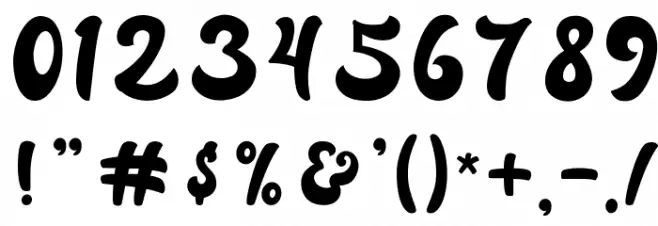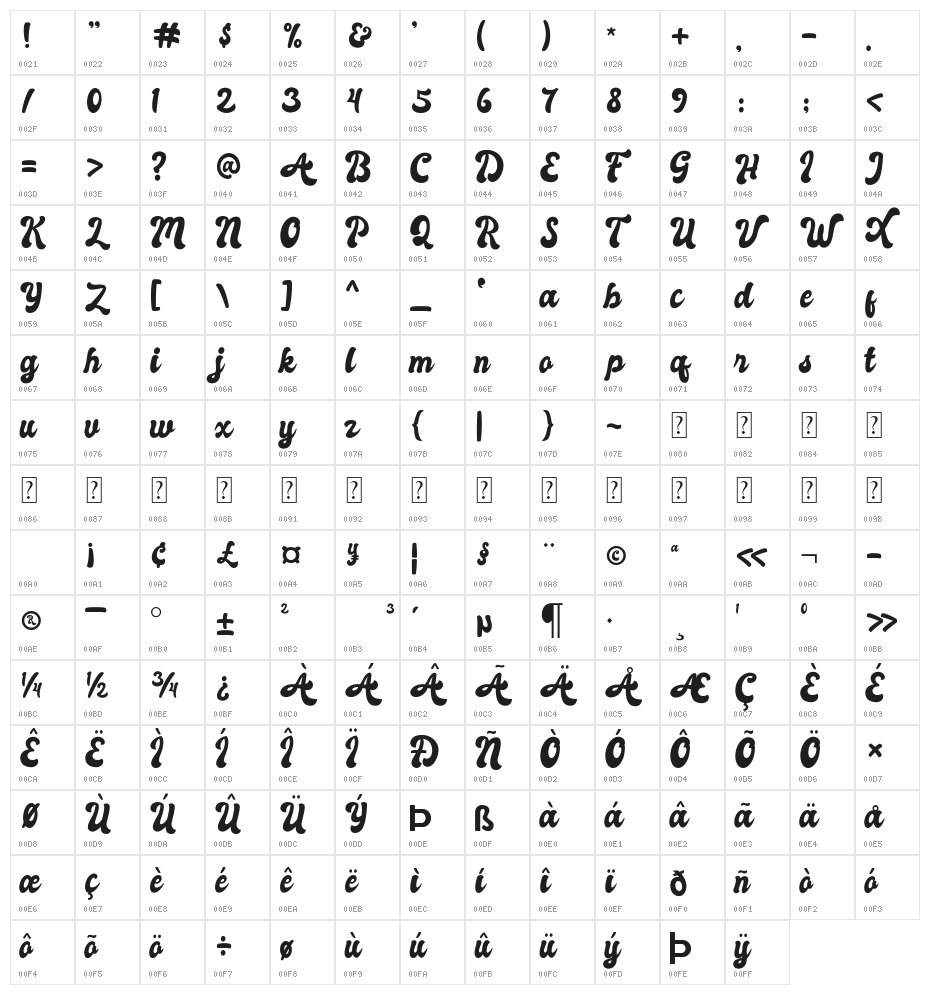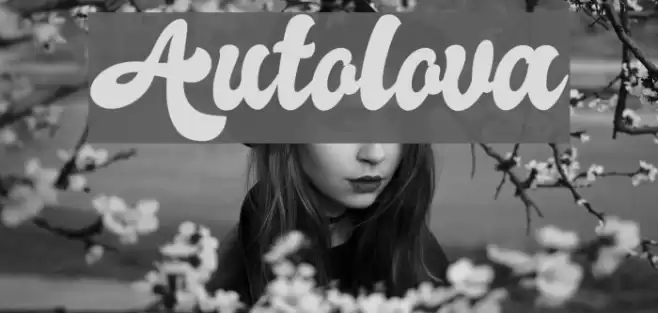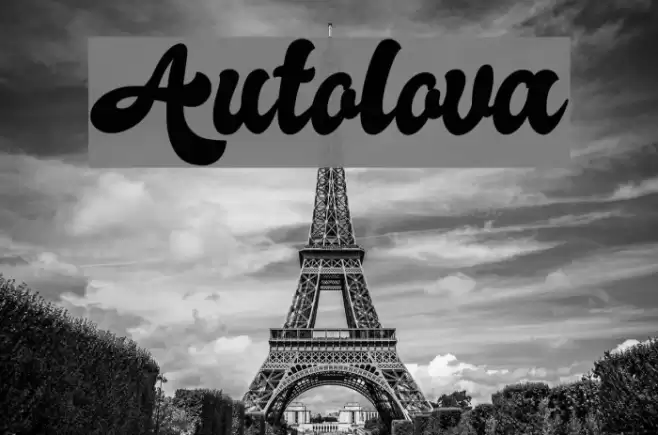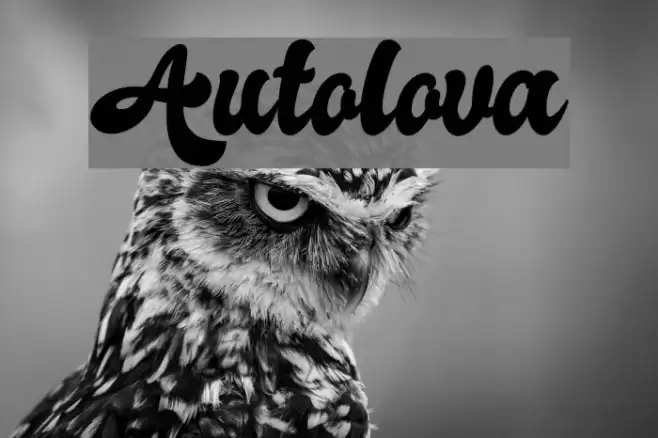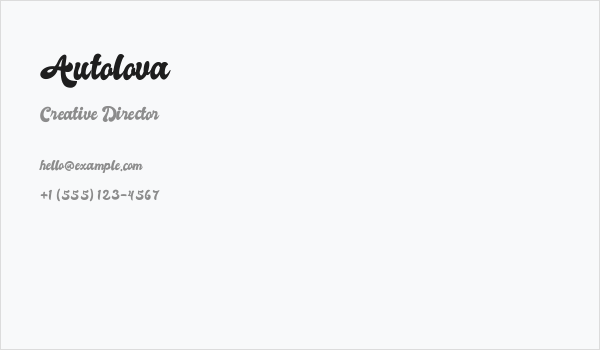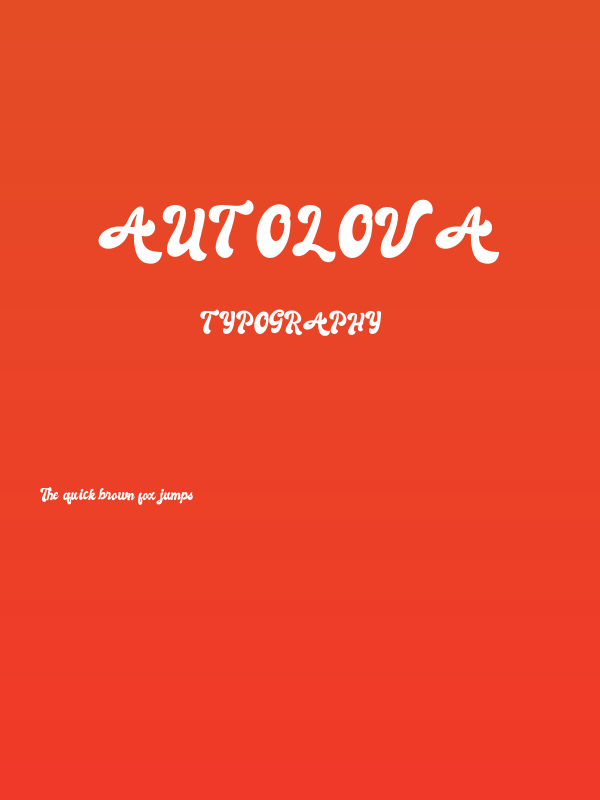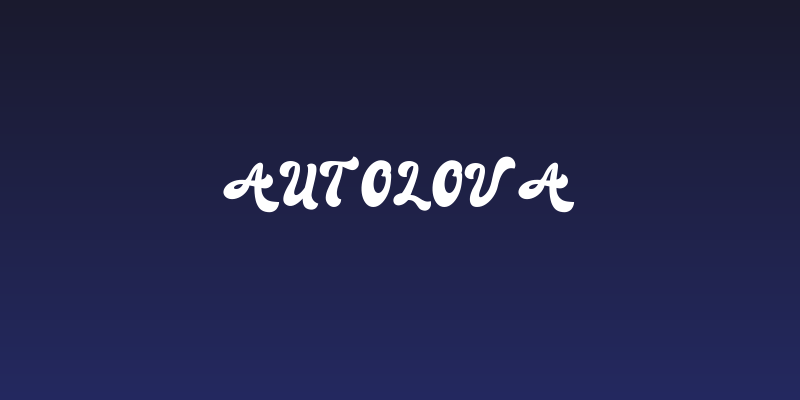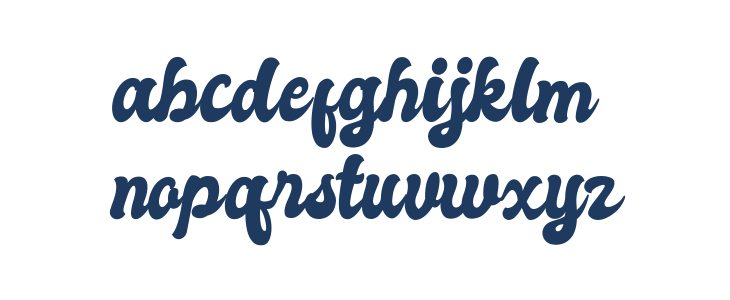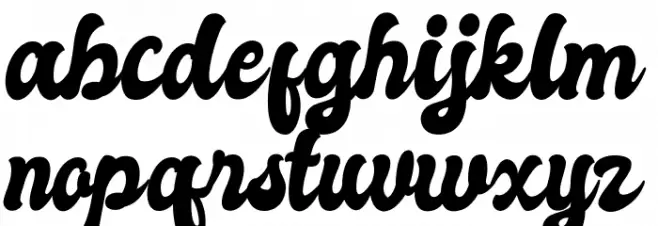
Autolova Font
Autolova Description
This font features a bold, cursive style with a playful and dynamic appearance. The letters are interconnected, creating a flowing script that is both elegant and energetic. The strokes are thick and rounded, giving the font a robust and friendly feel. The uppercase letters maintain a consistent height, while the lowercase letters have a slight slant, enhancing the cursive effect. Numbers and special characters are designed to match the overall style, ensuring a cohesive look across all text elements.
| Proposed Projects | Ideal for branding, invitations, greeting cards, and playful headlines. |